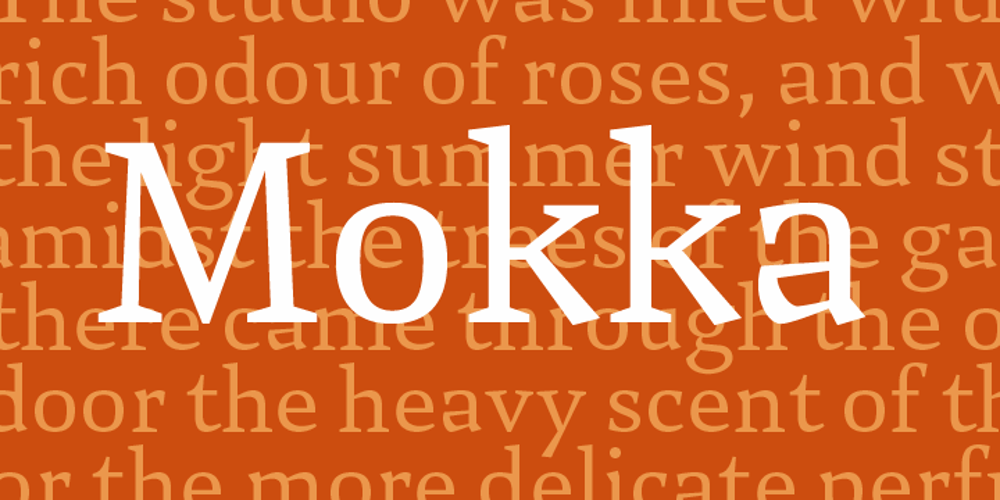
Mokka Font Family was designed by Ludwig Übele and published by Ludwig Type. Mokka contains 6 styles and family package options. Mokka is a robust and crisp typeface with strong serifs and individual forms. Even in text and striking in display, it is suitable for a wide variety of uses. The style-linked family includes oldstyle and lining figures both tabular and proportional.